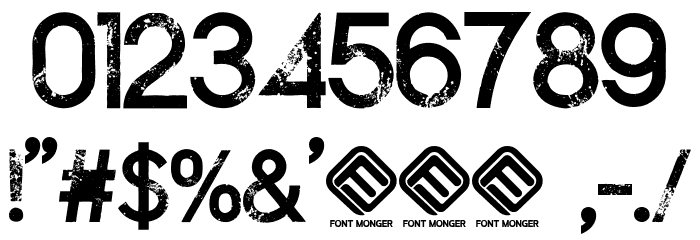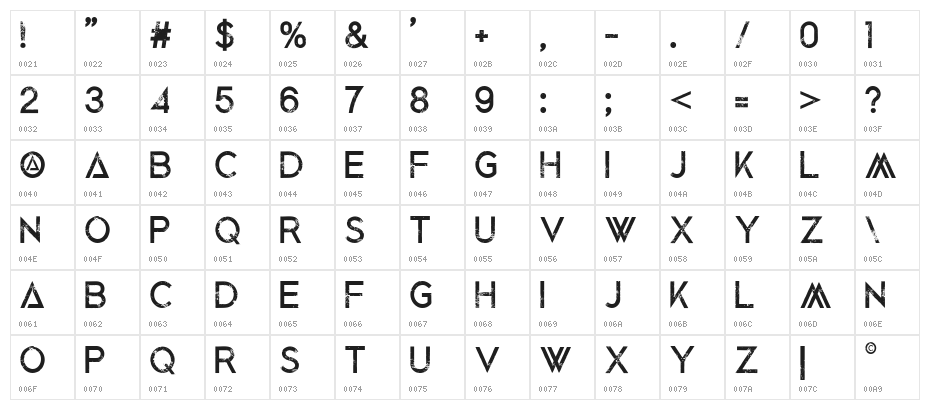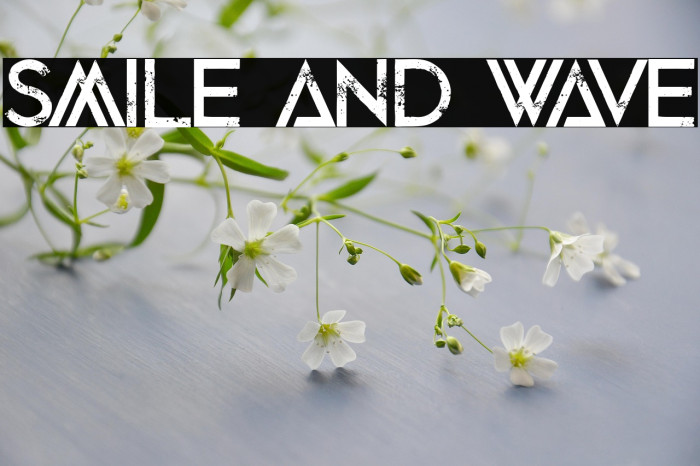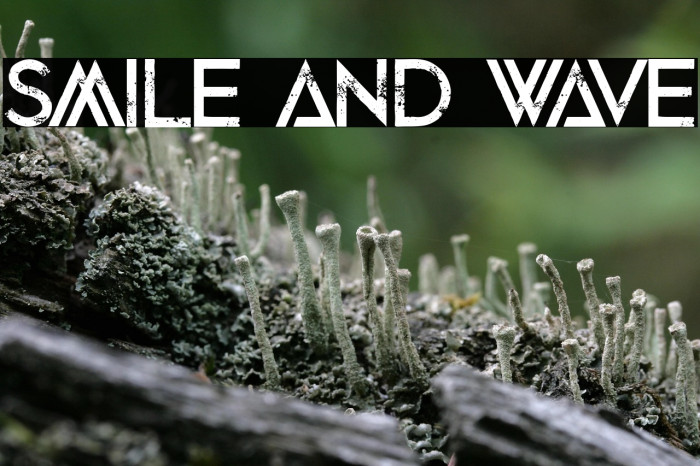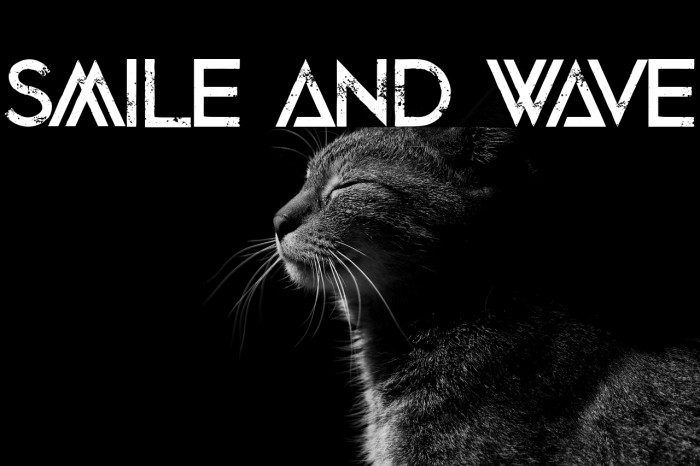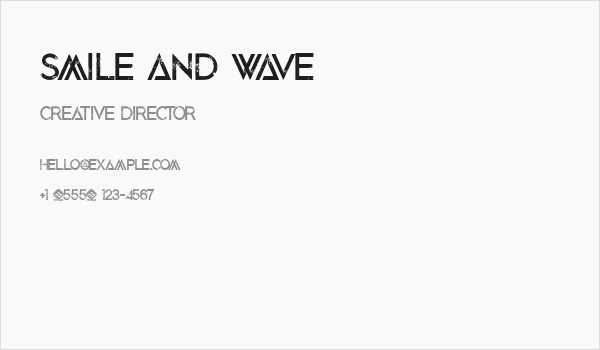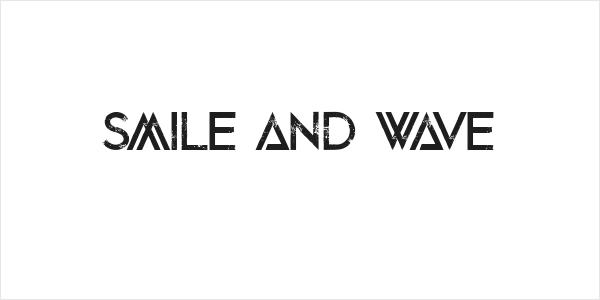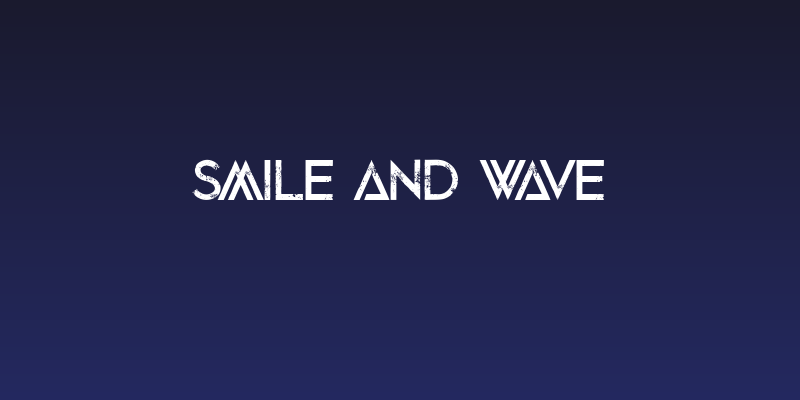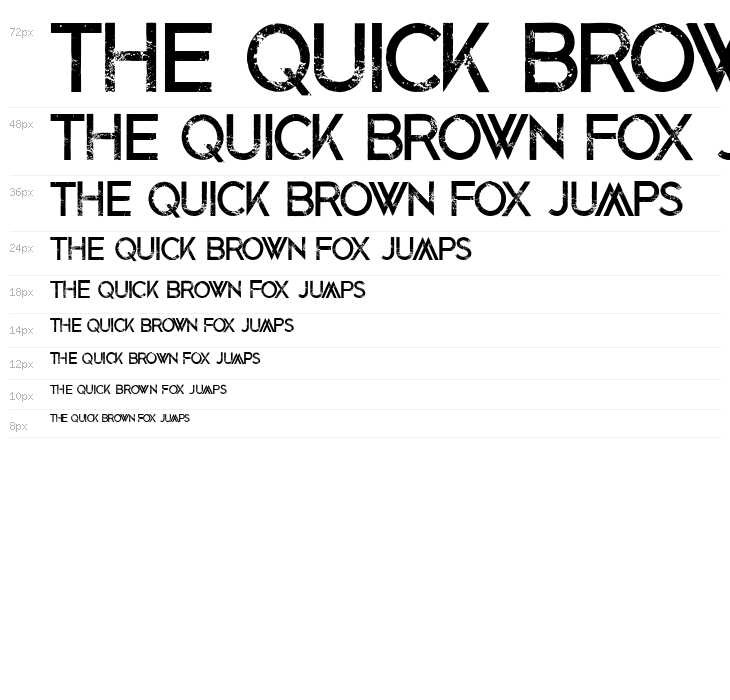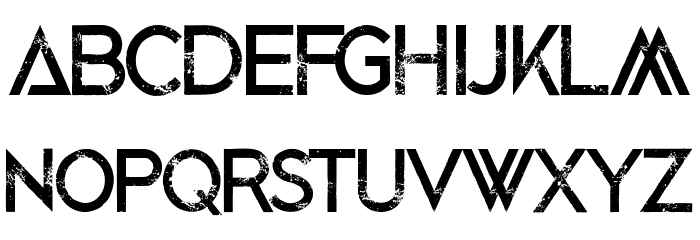
Smile and Wave Font
Smile and Wave Description
This font features a bold, distressed style with a modern, edgy appearance. The characters are uppercase with a rough, textured finish that gives a grunge or urban feel. The letters are geometric with sharp angles and clean lines, yet the distressed effect adds an element of ruggedness. This font is highly decorative, making it suitable for eye-catching designs. The numerals and special characters follow the same distressed pattern, maintaining consistency across the set.
| Proposed Projects | Ideal for posters, album covers, branding, and any project requiring a bold, urban aesthetic. |